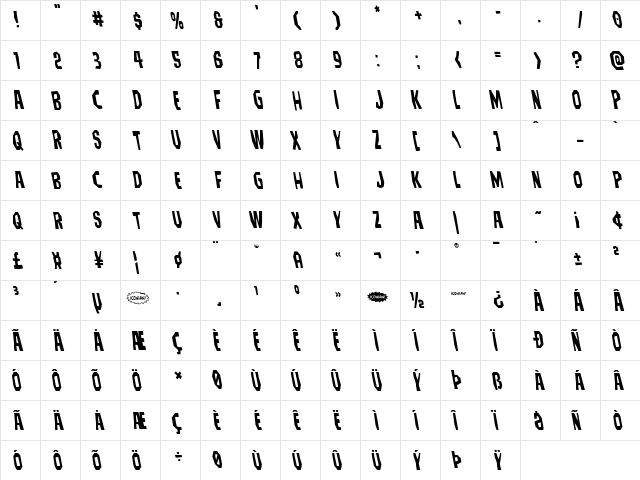
Hitchblock Leftalic Italic
Design Context for Hitchblock Leftalic Typeface
Hitchblock Leftalic offers clean, dependable letterforms without strong stylistic allegiance, making it a practical choice for designers who need flexibility. Its italic angle brings a sense of urgency and motion to the letterforms.
Pro Tip: Use Hitchblock Leftalic for emphasis, pull quotes, and subheadings where its slanted energy can add rhythm to the layout.